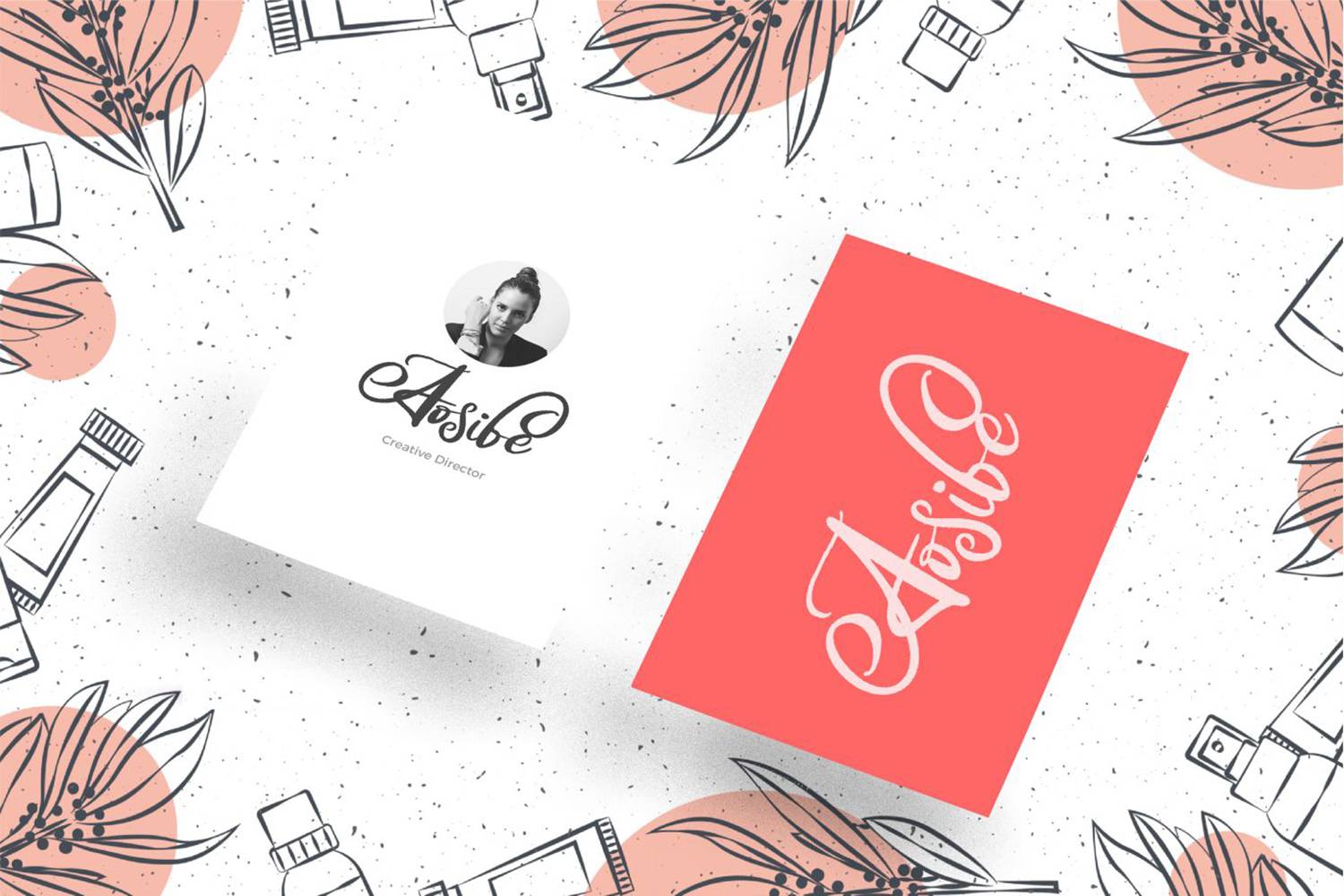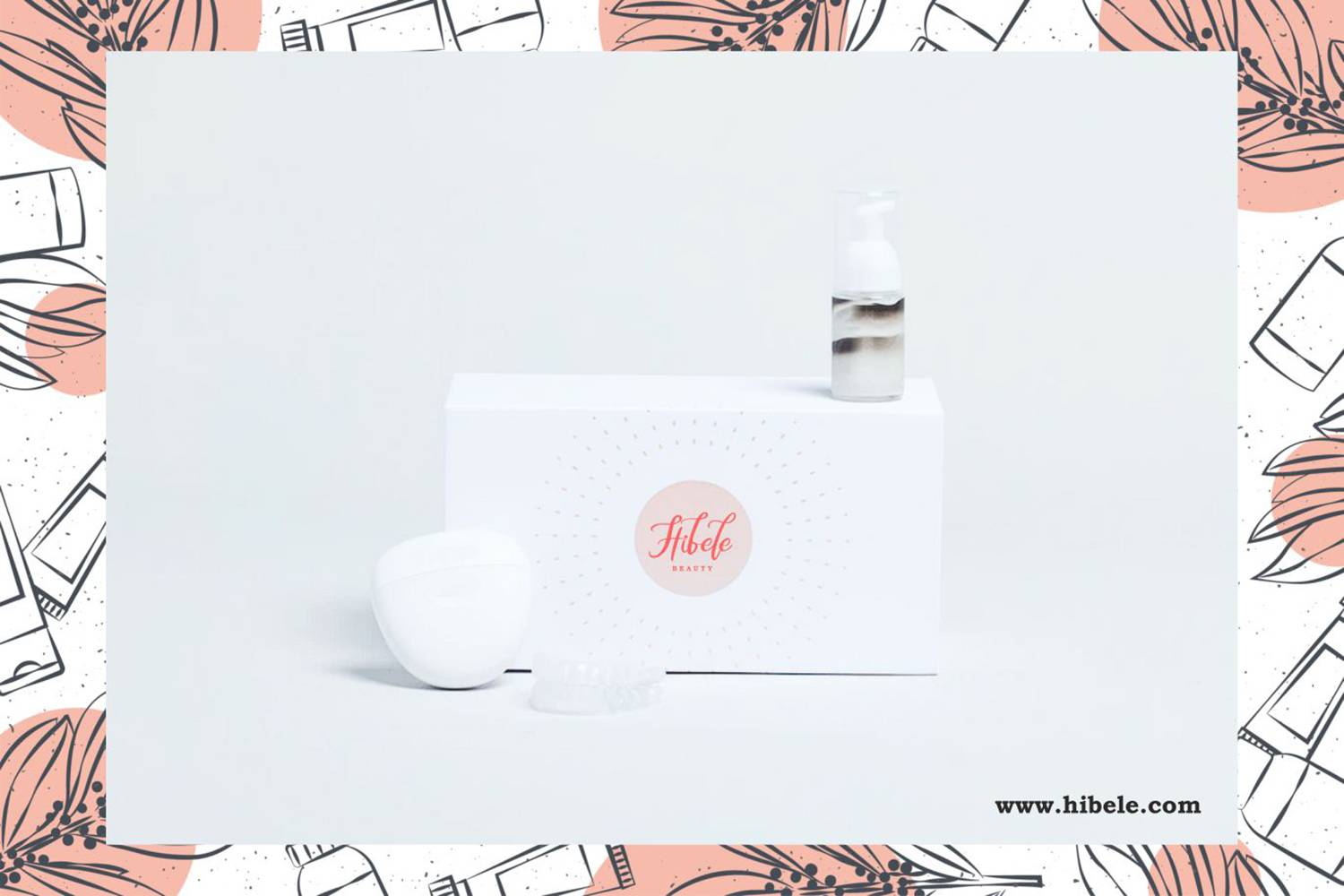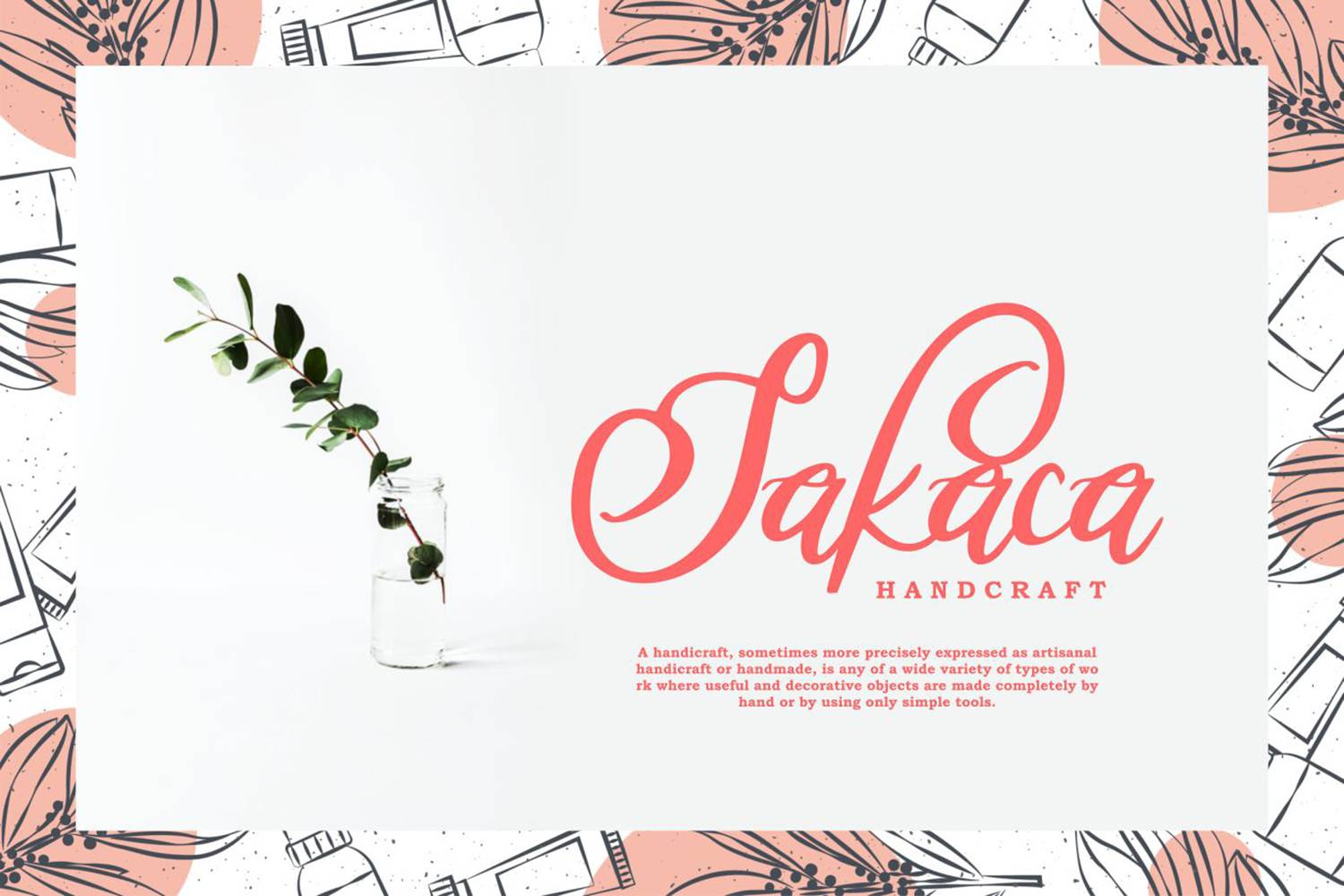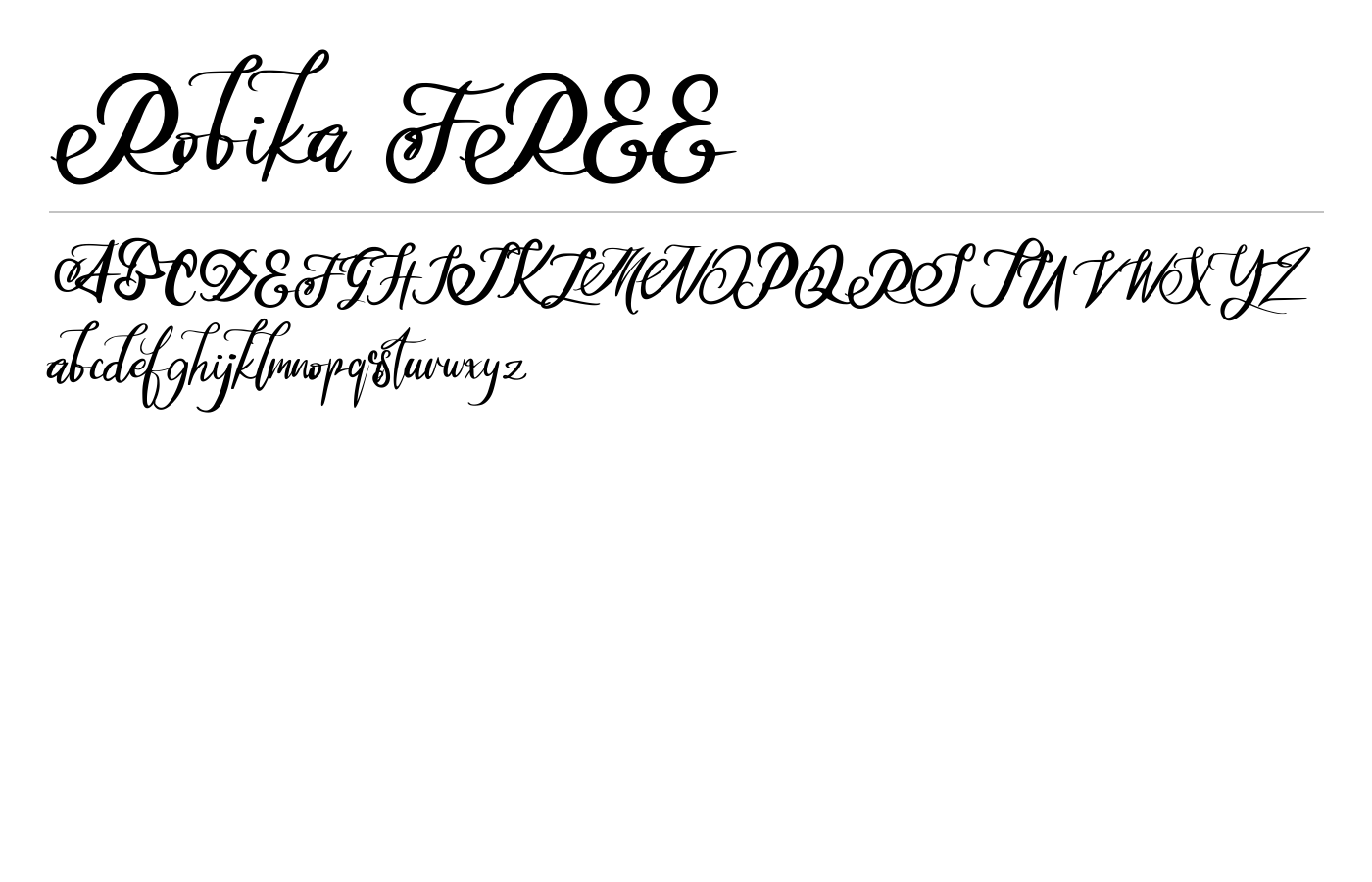
Robika is an elegant script font characterized by its fluid, handwritten style with delicate strokes and stylish loops. Its graceful curves and high contrast between thick and thin lines give it a refined, luxurious feel, making it perfect for invitations, branding, and editorial use where a touch of sophistication and personal flair is desired. This font works beautifully in headline or decorative contexts, adding charm and a sense of artistry.
Robika Font
About Robika Font
| Font family | Robika Font |
| Designer | Fannan Studio |